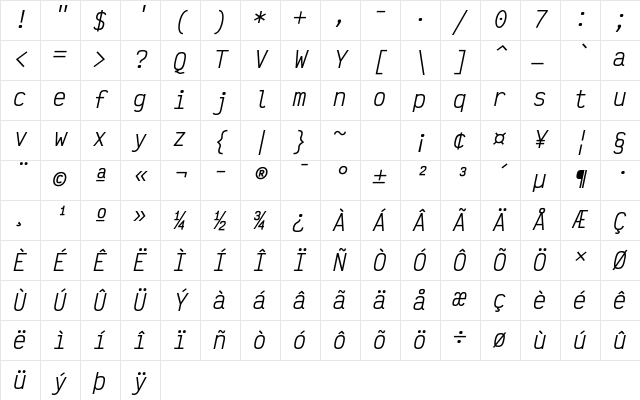
VictorMono Nerd Font Mono Italic
Designer: Rune Bj￿rner￿s
Complete VictorMono Nerd Font Mono Italic glyph index. Displaying only characters natively supported by VictorMono Nerd Font Mono Italic font.
Design Context for VictorMono Nerd Font Mono
VictorMono Nerd Font Mono uses fixed-width spacing throughout, giving it the structured, systematic character associated with coding environments and technical documentation. The slanted form adds forward momentum and visual energy.